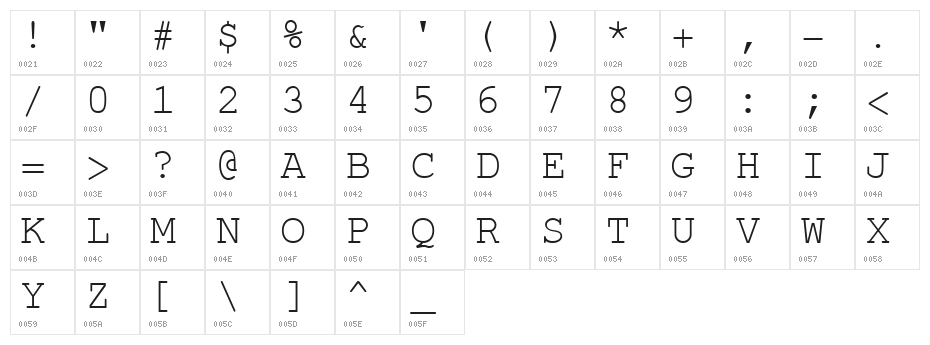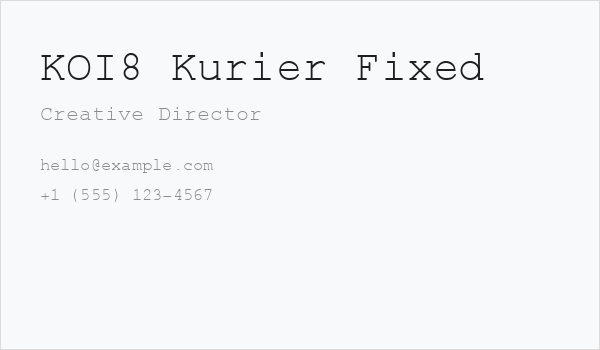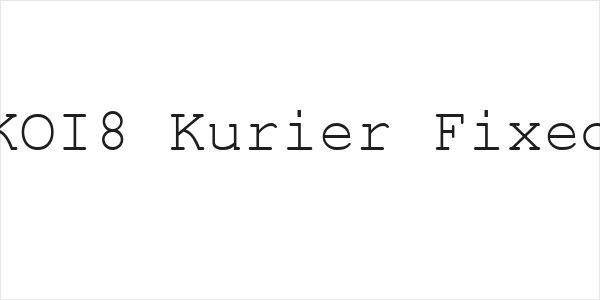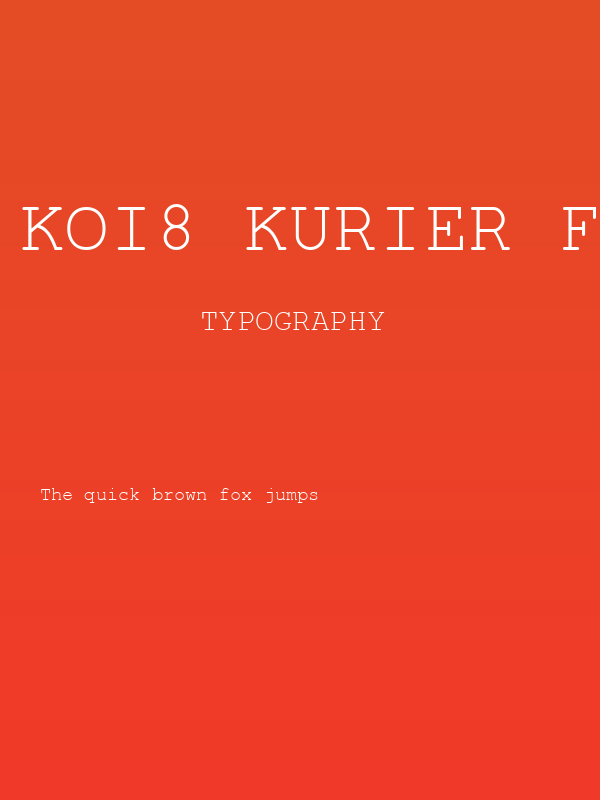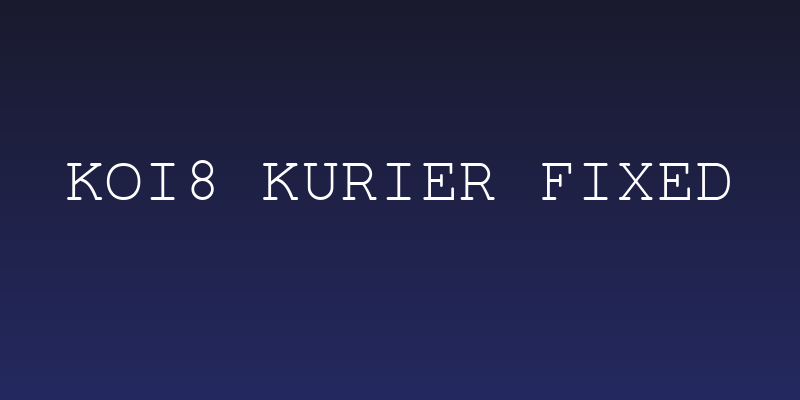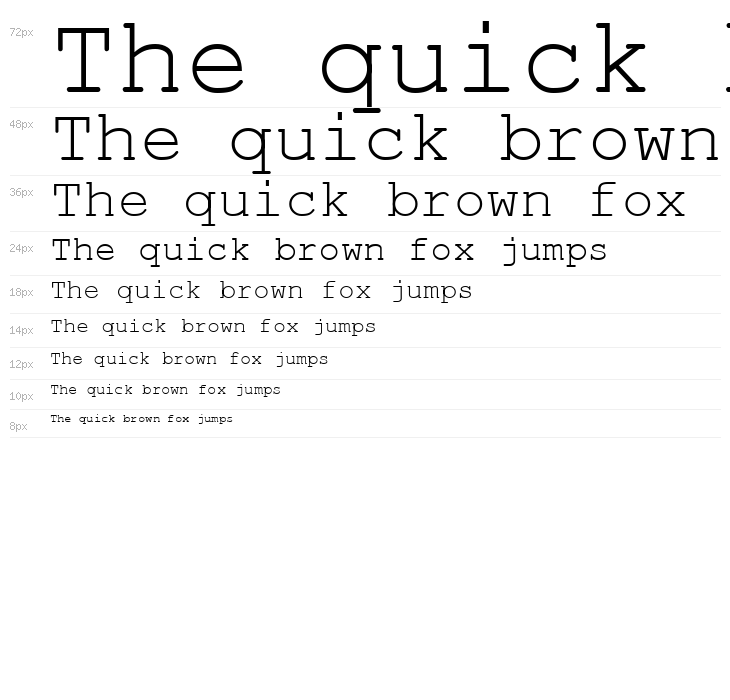
KOI8 Kurier Fixed Font
KOI8 Kurier Fixed Description
This typeface features a monospaced design with a clean and structured appearance. Each character is evenly spaced, providing a uniform look that is ideal for coding and tabular data. The strokes are consistent in width, offering a low contrast between thick and thin lines. The font maintains a classic and timeless style, with a straightforward and legible form that enhances readability. The uppercase and lowercase letters are well-proportioned, and the numerals are clear and distinct. Special characters are included, making it versatile for various applications.
| Use Case | Coding, Technical documentation, Data tables |
| Proposed Projects | Ideal for coding environments, technical documentation, and data tables. |